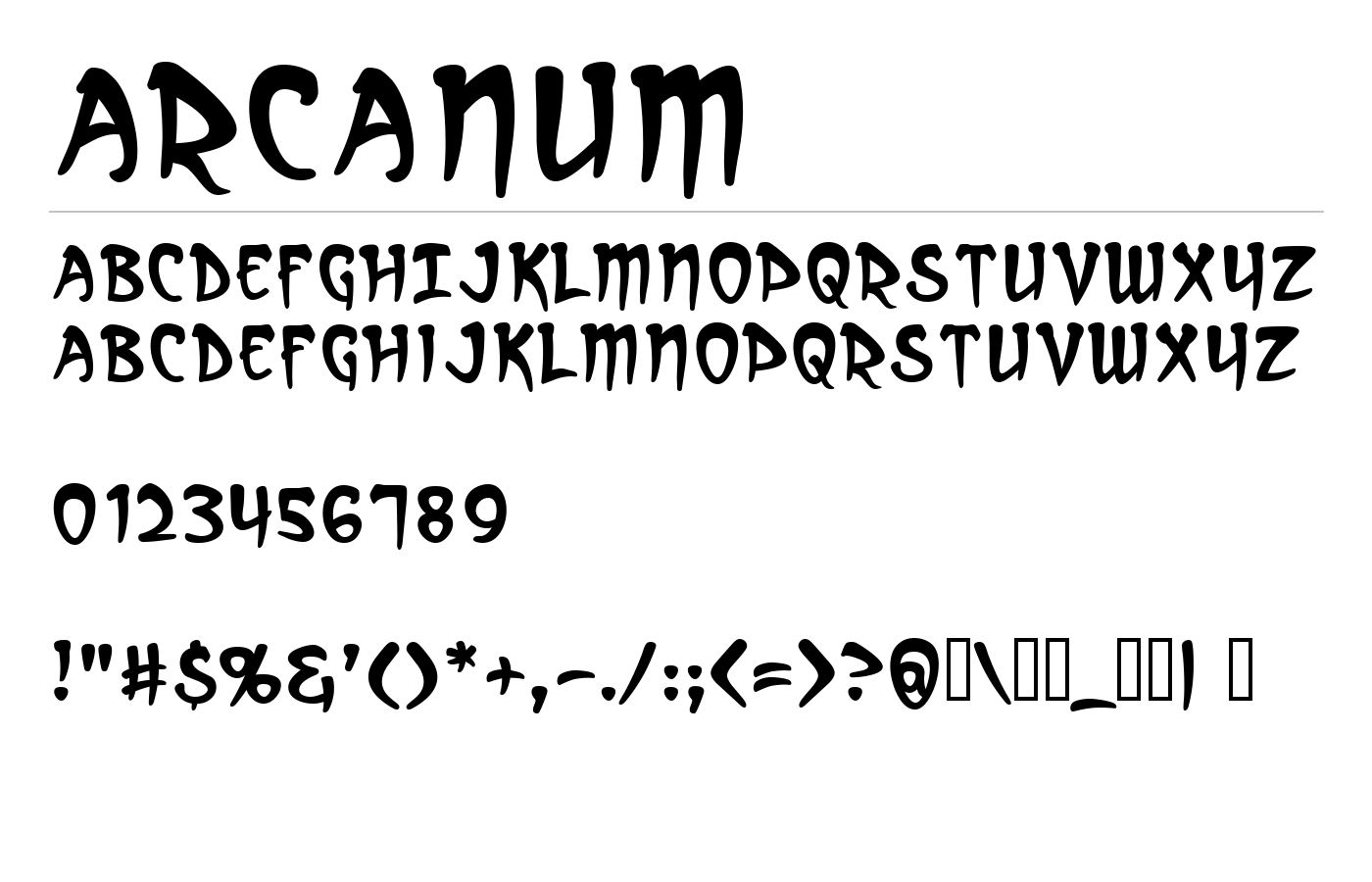
Arcanum is a playful, hand-drawn sans serif font with a whimsical and casual vibe. Its uneven strokes and quirky letter shapes give it a lively, artistic feel that's perfect for creative projects, children’s books, or informal branding. This font works best in headlines or display text where a fun and approachable personality is desired.
Arcanum Font
About Arcanum Font